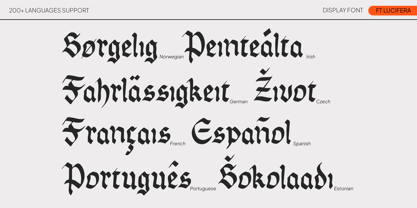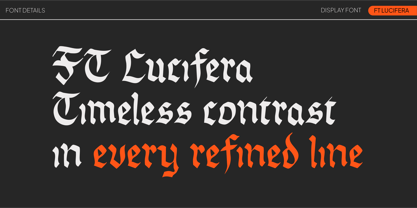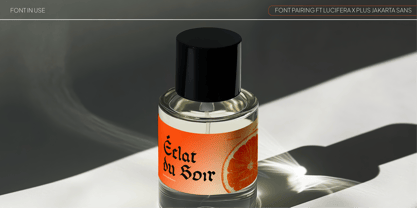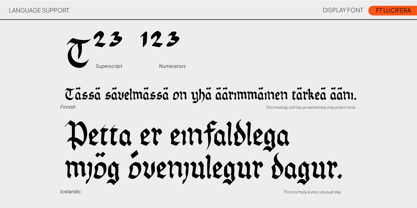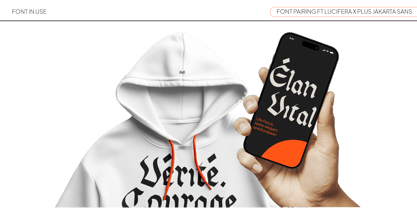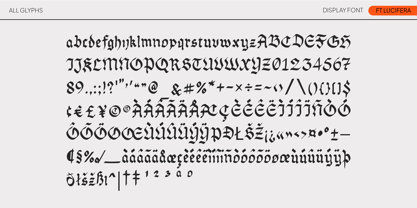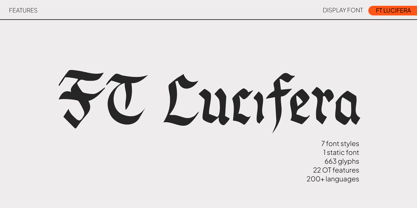
FT Lucifera
by Firstype Studio
The FT Lucifera Font Family was designed by Adrian Syauqi and published by Firstype Studio. FT Lucifera contains 1 styles. More about this family
FT Lucifera is a handcrafted handwritten font that captures the essence of modern calligraphy with a twist of casual flair. Designed for those who seek authenticity and emotion in their typography, FT Lucifera brings warmth, personality, and a contemporary edge to your creative projects.
With 7 unique styles and 1 powerful variable font, FT Lucifera offers exceptional versatility and control. It’s perfect for everything from branding and logo design to social media posts, invitations, packaging, and editorial titles.
Featuring 663 meticulously drawn glyphs, 18 OpenType features, and support for 200+ languages, FT Lucifera ensures your message resonates globally—without compromising style or legibility.
• 7 font styles (Light to Bold, including Italic variants)
• 1 variable font for full customization
• 663 glyphs with multilingual support
• 18 OpenType features (ligatures, alternates, and more)
• Perfect for logos, quotes, packaging, posters, and headlines
Why Choose FT Lucifera?
Whether you're crafting a personal brand or working on a commercial project, FT Lucifera delivers a premium feel with a human touch. Its natural strokes and fluid rhythm make your words look effortlessly stylish—while remaining clear and impactful.
Designers: Adrian Syauqi
Foundry: Firstype Studio